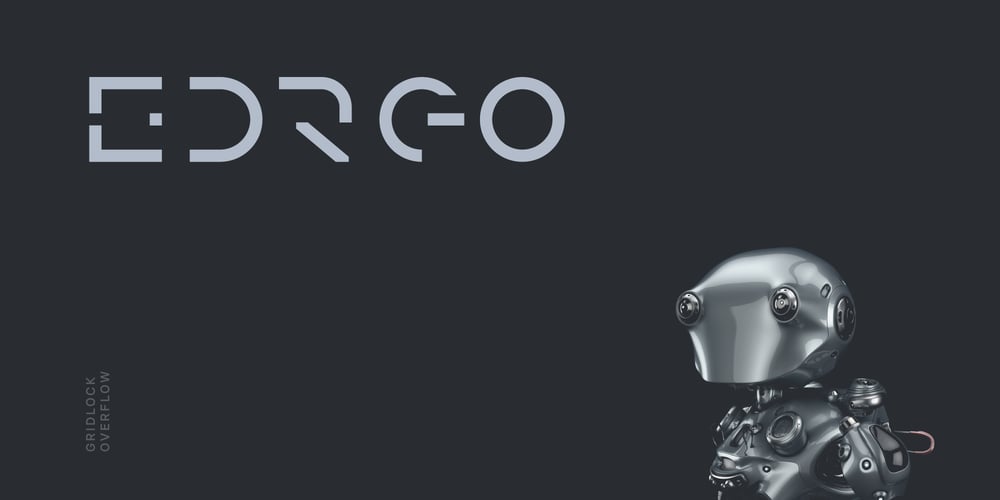
Edrgo
Edrgo font
Edrgo Font Family was designed by Andrew Seah and published by Baqoos. Edrgo contains 4 styles and family package options. Agobb is a gridlock overflow tech sans apt for headline, editorial, branding, packaging, printed materials and typographic applications. 200+ glyphs with ligatures and fractions provided in opentype .otf and .woff format.